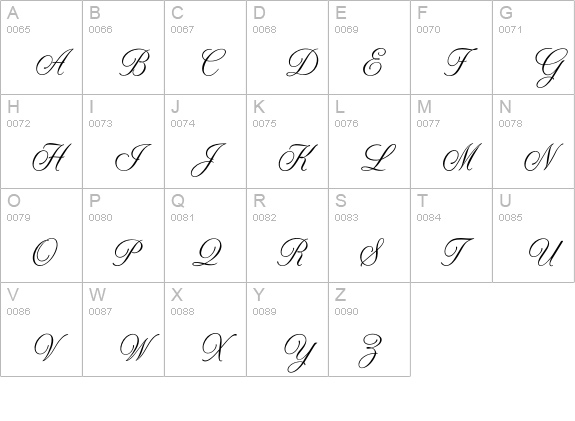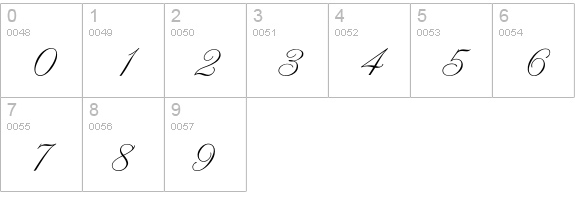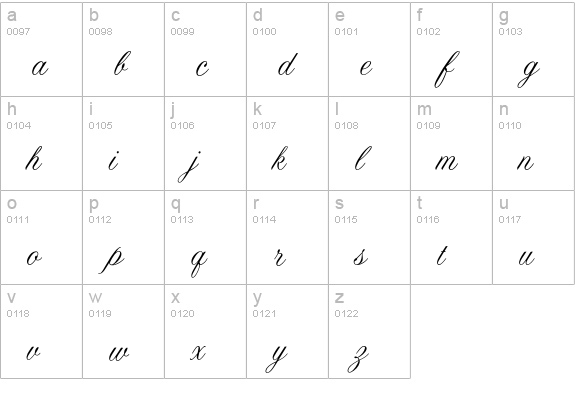
HappyBirthday Font Details
HappyBirthday font is a delightful and playful typeface that encapsulates the essence of celebration and joy. With its whimsical letterforms and lively curves, this font is perfect for adding a touch of cheerfulness to any project. Whether you are designing a birthday invitation, creating a festive banner, or simply want to add a dose of happiness to your personal artwork, HappyBirthday font is here to make your designs come alive. What makes HappyBirthday font even more special is that it is completely free! Yes, you read that right. This amazing font is freely available to download at FontsMarket.com. Now you can bring a smile to your audience's faces without spending a penny. With its easy-to-use download feature, FontsMarket.com ensures that HappyBirthday font is accessible to everyone who wishes to spread happiness through their designs. Not only does HappyBirthday font offer a wide range of playful characters and ligatures, but it also provides various font weights and styles, giving you the flexibility to create visually captivating designs. From bold and vibrant to delicate and elegant, this font has it all. Its versatility allows you to experiment with different styles and create unique compositions that truly reflect the celebratory atmosphere. So, whether you are a professional designer, a hobbyist, or someone who simply enjoys adding a touch of whimsy to their creative endeavors, HappyBirthday font is the perfect choice. With its free availability at FontsMarket.com, you have the opportunity to explore the endless possibilities of this font without any limitations. Download HappyBirthday font today and let your designs radiate happiness and joy!